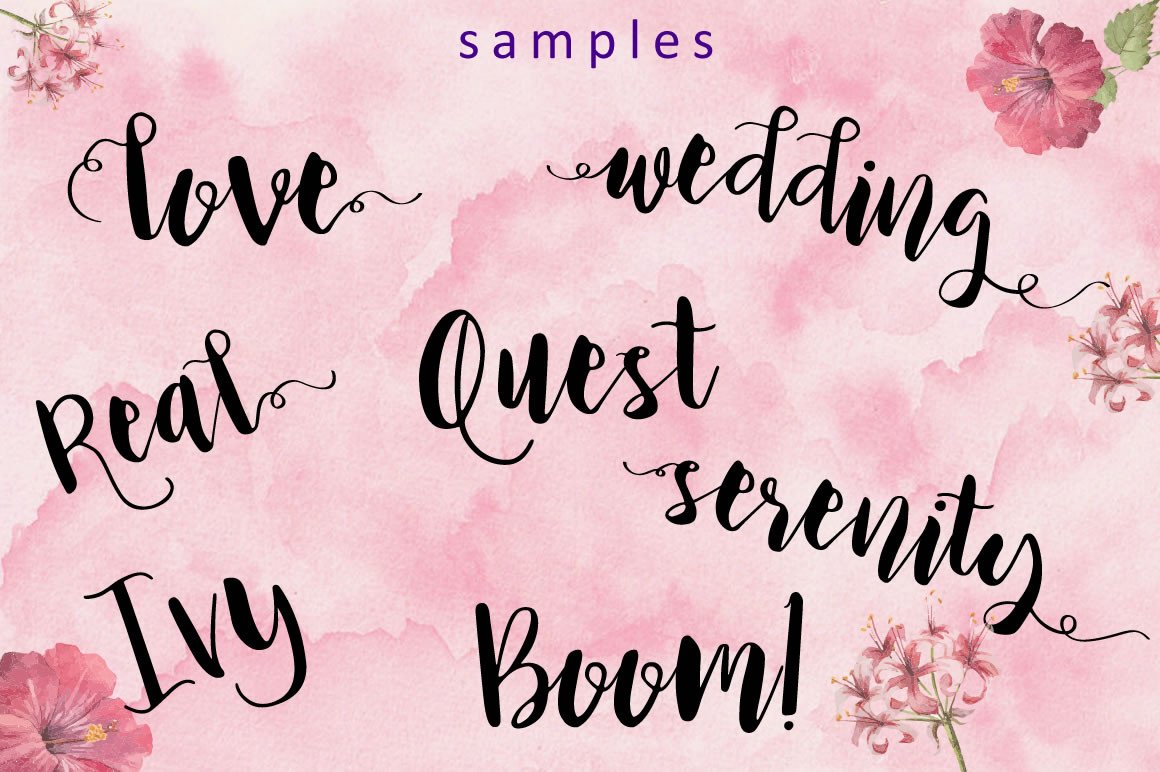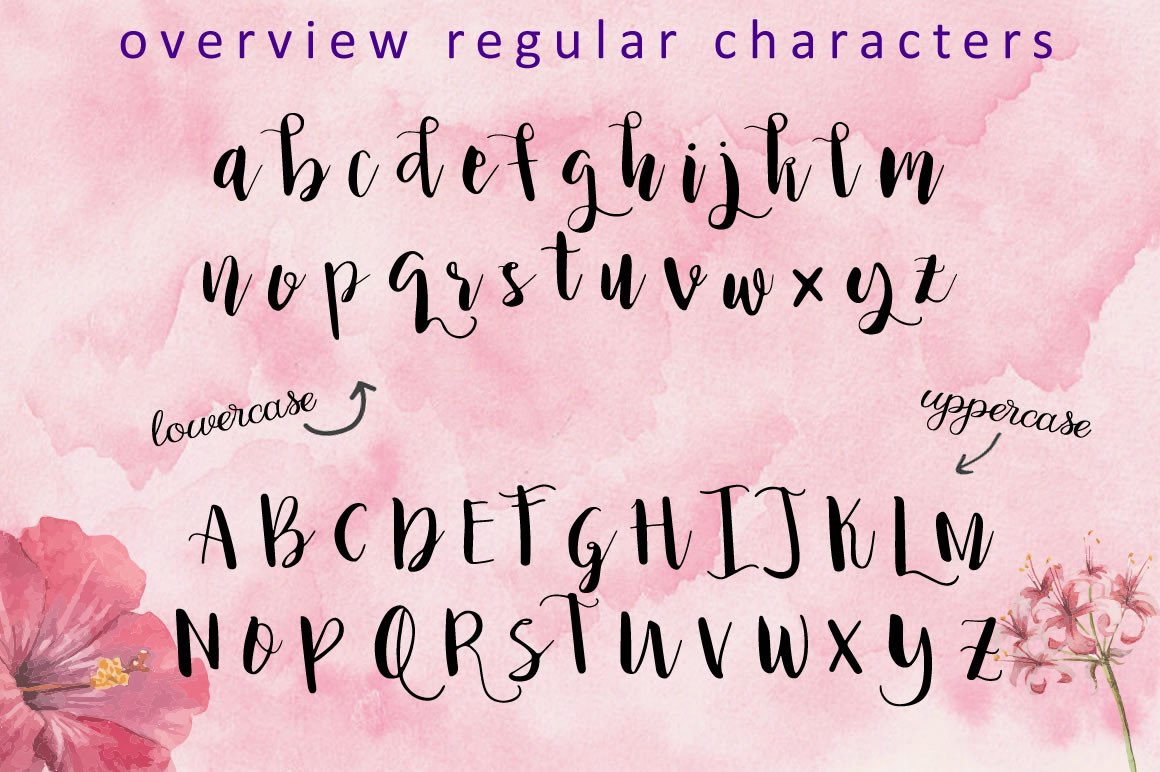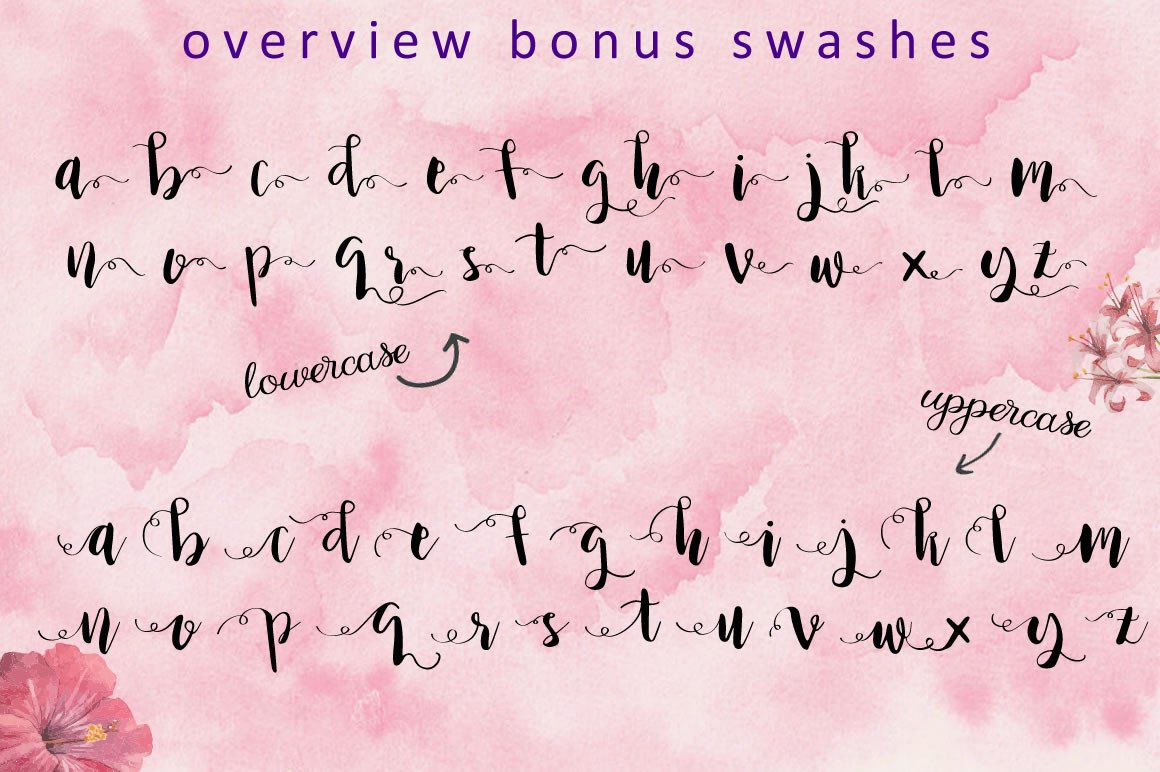
About Princess Ivy Font
Princess Ivy is a beautiful and elegant font.
Every letter of Princess Ivy is painted by hand with a small brush, digitally scanned and optimized until perfection. Princess Ivy is a strong and independent font that has many purposes.
The font looks great and elegant on invites and thanks you notes, tough and strong on beautiful (wooden) signs, and easy to read for when adding decorative texts to any object, digital or physical.
Princess Ivy is split into 2 separate fonts:
Princess Ivy Regular
Princess Ivy Swashes